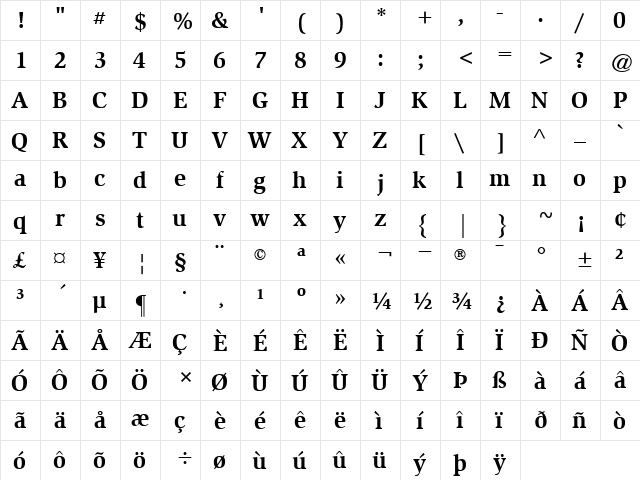
ITCSlimbach Bold Font Preview
ITCSlimbach Bold
ITCSlimbach Bold Font Details
Design Context for ITCSlimbach Typeface
ITCSlimbach offers clean, dependable letterforms without strong stylistic allegiance, making it a practical choice for designers who need flexibility. Its bold stroke weight gives it real presence on the page.